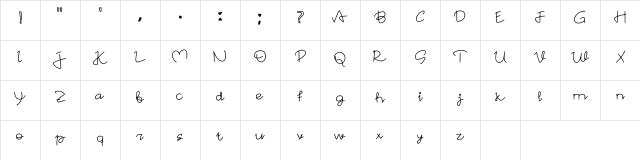
Sambalado Regular
Complete Sambalado Regular glyph index. Displaying only characters natively supported by Sambalado Regular font.
Design Context for Sambalado
Sambalado is a composed and adaptable typeface that performs quietly and consistently across a wide range of design contexts.